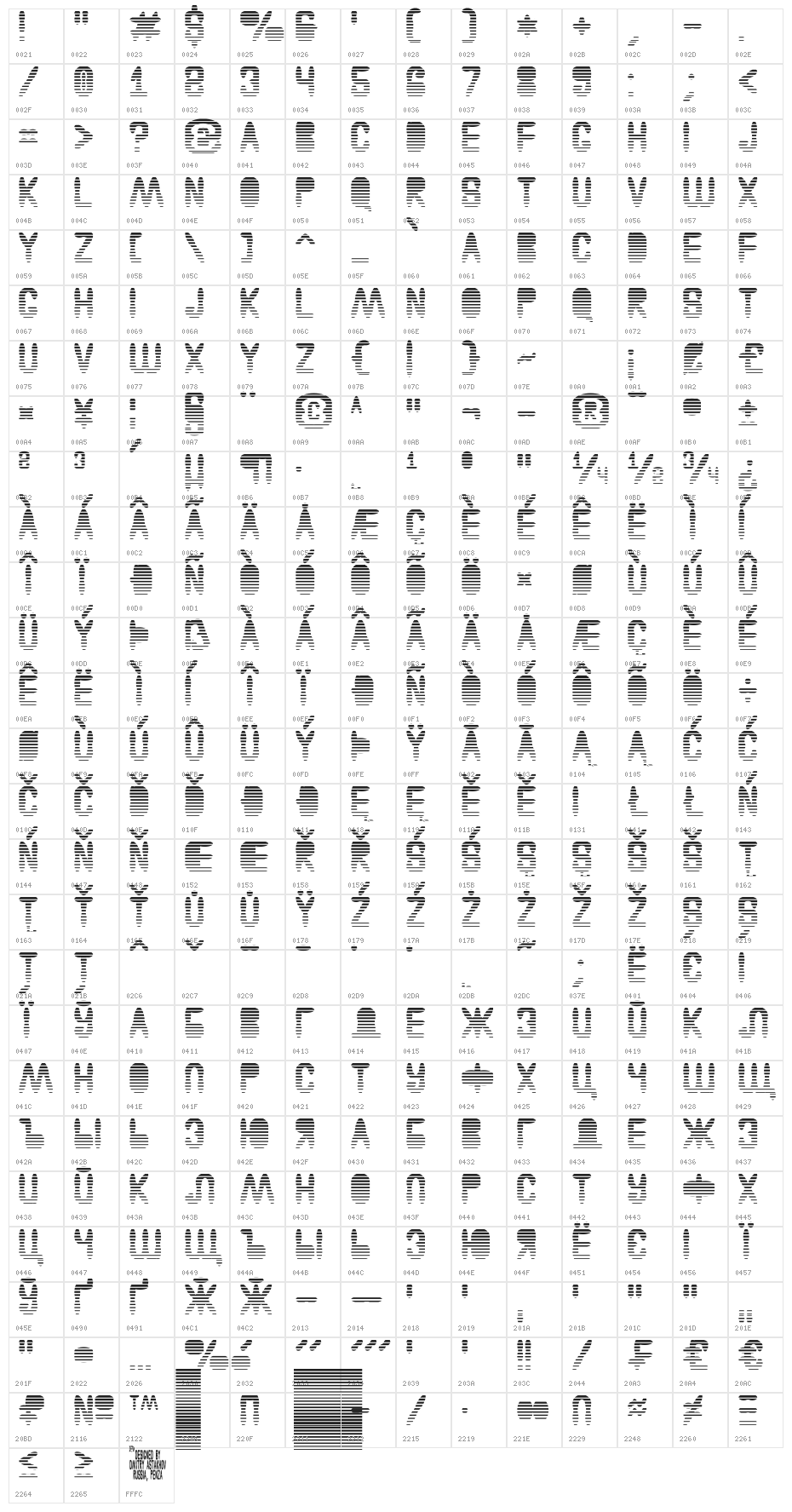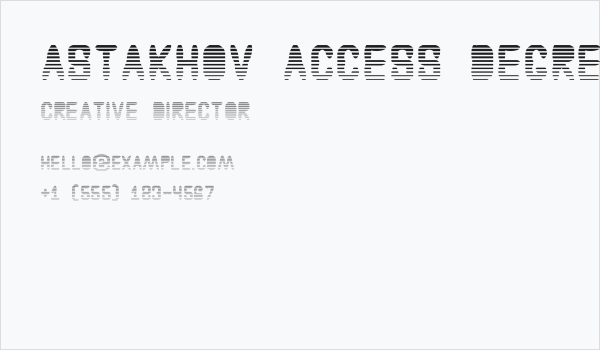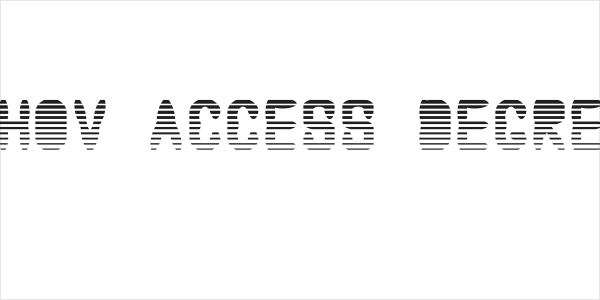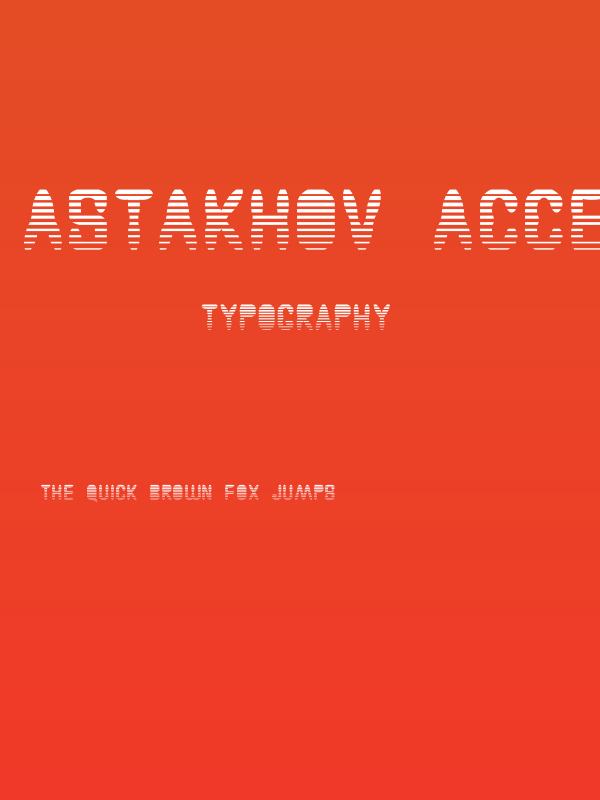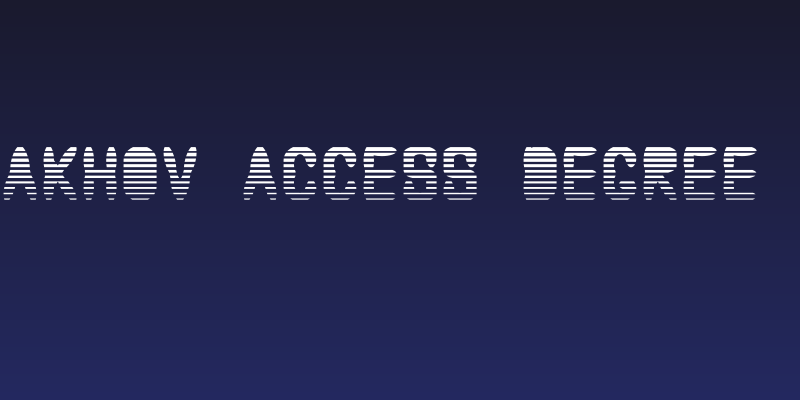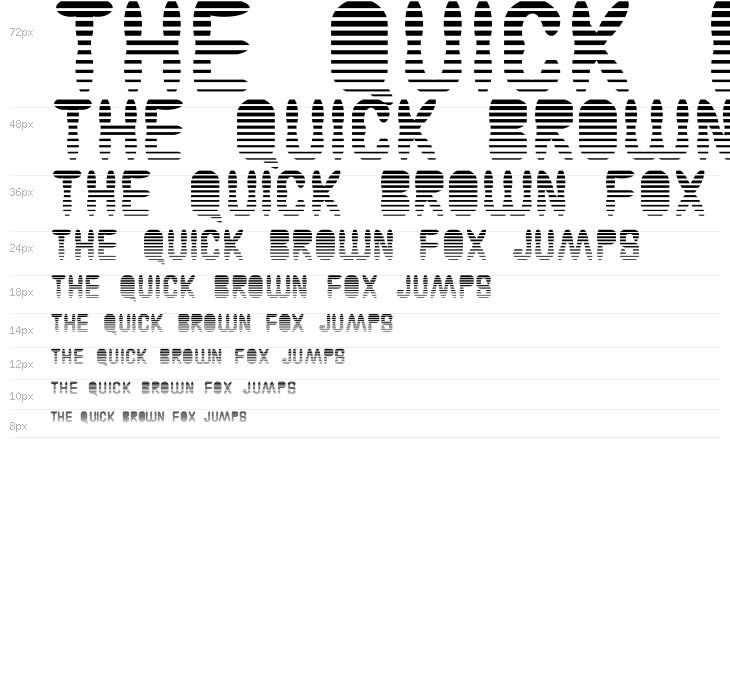
Astakhov Access Degree ALF Font
Astakhov Access Degree ALF Description
This font features a unique design characterized by horizontal stripes that create a sense of movement and modernity. Each character is composed of a series of parallel lines, giving it a digital and futuristic appearance. The uppercase and lowercase letters maintain a consistent style, with clear and bold shapes that ensure readability despite the decorative elements. The numerals and special characters follow the same striped pattern, making the font cohesive and visually striking. This font is ideal for projects that require a contemporary and innovative look, such as technology branding or digital media.
| Proposed Projects | Ideal for technology branding, digital media, and innovative design projects. |